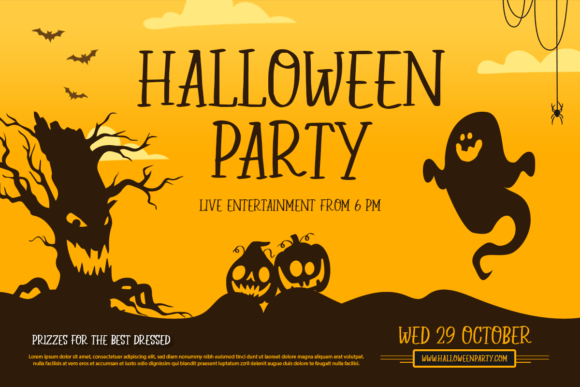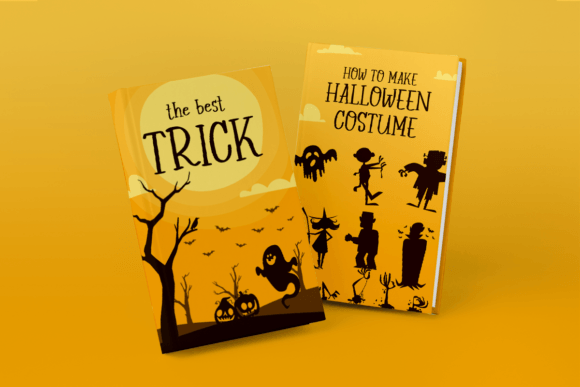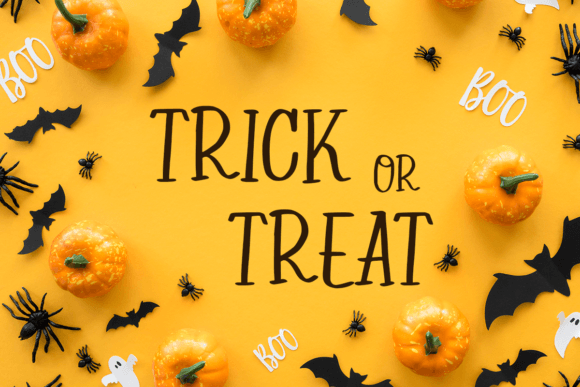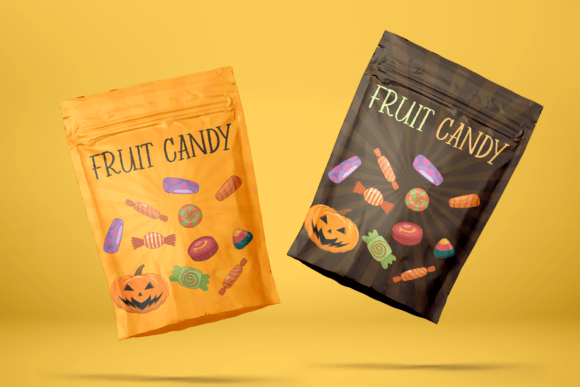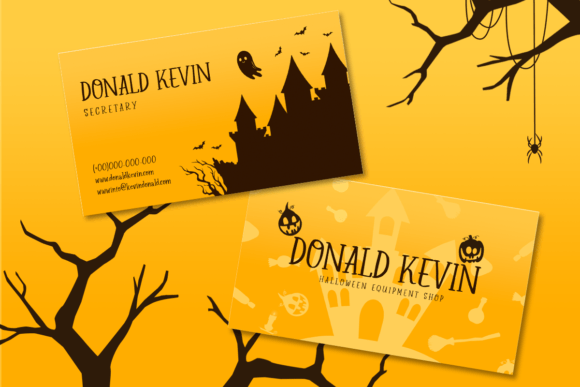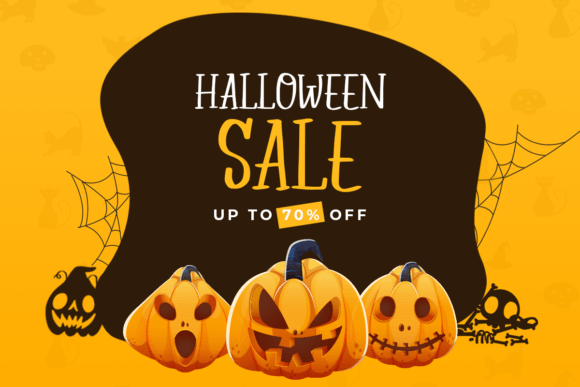
Introducing Funny Spooky: The Ultimate Halloween Font for Designers and Crafters
Are you looking for a font that captures the essence of Halloween fun and spookiness? Look no further than Funny Spooky, a playful and eerie font designed specifically for Halloween events, kids’ posters, and children’s games. In this article, we’ll dive into the world of Funny Spooky and explore its features, uses, and benefits for designers and crafters.
What is Funny Spooky Font?
Funny Spooky is a Halloween-themed font that combines the thrill of spooky season with a dash of playfulness. This font is perfect for creating eye-catching designs that are both eerie and entertaining. With its unique blend of creepy and kooky characters, Funny Spooky is sure to add a howling good time to any design project.
Key Features of Funny Spooky Font
- Halloween-themed characters: Funny Spooky features a range of Halloween-themed characters, including ghosts, bats, pumpkins, and more.
- Playful and eerie design: The font’s design strikes the perfect balance between spooky and playful, making it suitable for kids’ posters and children’s games.
- High-quality and scalable: Funny Spooky is a high-quality font that can be scaled up or down without losing its clarity or charm.
Uses for Funny Spooky Font
Funny Spooky is a versatile font that can be used for a wide range of design projects, including:
- Halloween events: Create eye-catching posters, invitations, and flyers for Halloween parties and events.
- Kids’ posters: Design fun and engaging posters for kids’ activities, such as trick-or-treating, costume contests, and Halloween-themed games.
- Children’s games: Use Funny Spooky to create spooky yet fun game titles, characters, and graphics for kids’ games.
- Crafting projects: Add a touch of Halloween fun to your crafting projects, such as DIY decorations, cards, and gift tags.
Funny Spooky offers a range of benefits for designers and crafters, including:
- Time-saving: With Funny Spooky, you can create Halloween-themed designs quickly and easily, saving you time and effort.
- Unique designs: This font allows you to create unique and eye-catching designs that stand out from the crowd.
- Fun and playful: Funny Spooky adds a touch of fun and playfulness to your designs, making them perfect for kids’ projects and Halloween events.
- Customizable: You can customize Funny Spooky to fit your design needs, making it a versatile font for a range of projects.
Tips for Using Funny Spooky Font
Here are some tips for getting the most out of Funny Spooky:
- Experiment with colors: Try pairing Funny Spooky with a range of colors to create different moods and effects.
- Mix and match: Combine Funny Spooky with other fonts and graphics to create unique and eye-catching designs.
- Keep it simple: Don’t be afraid to keep your design simple and let Funny Spooky be the star of the show.
Funny Spooky is a fantastic font for designers and crafters looking to add a touch of Halloween fun to their projects. With its unique blend of spooky and playful characters, this font is perfect for Halloween events, kids’ posters, and children’s games. Whether you’re a seasoned designer or a crafting novice, Funny Spooky is sure to inspire your creativity and add a howling good time to your designs.